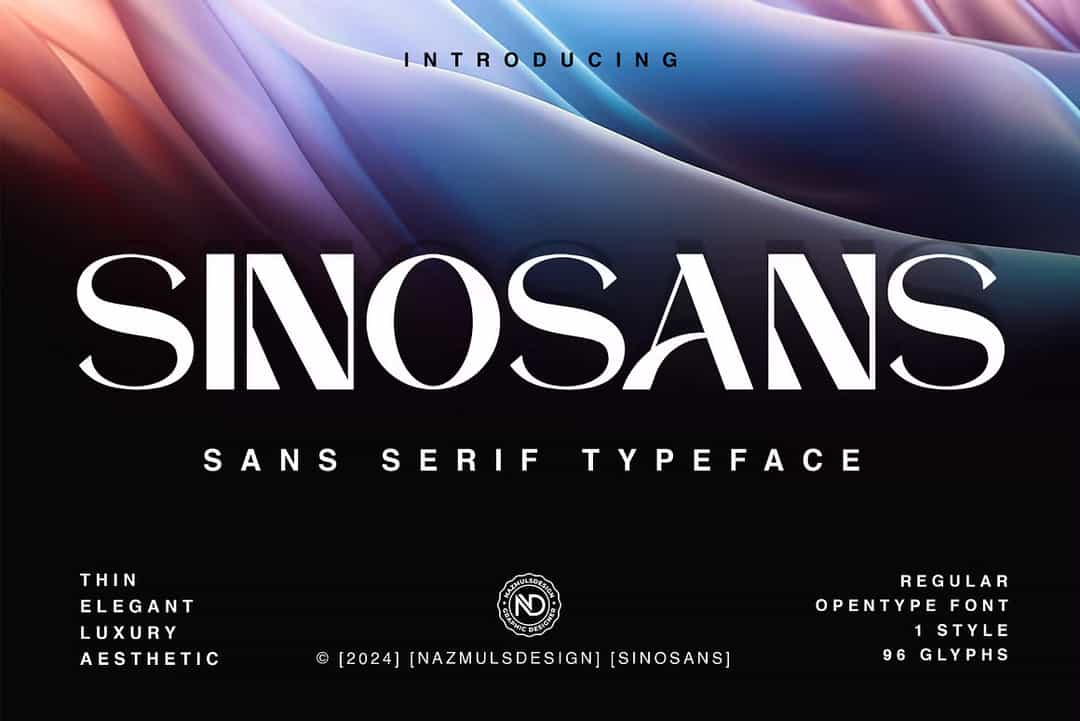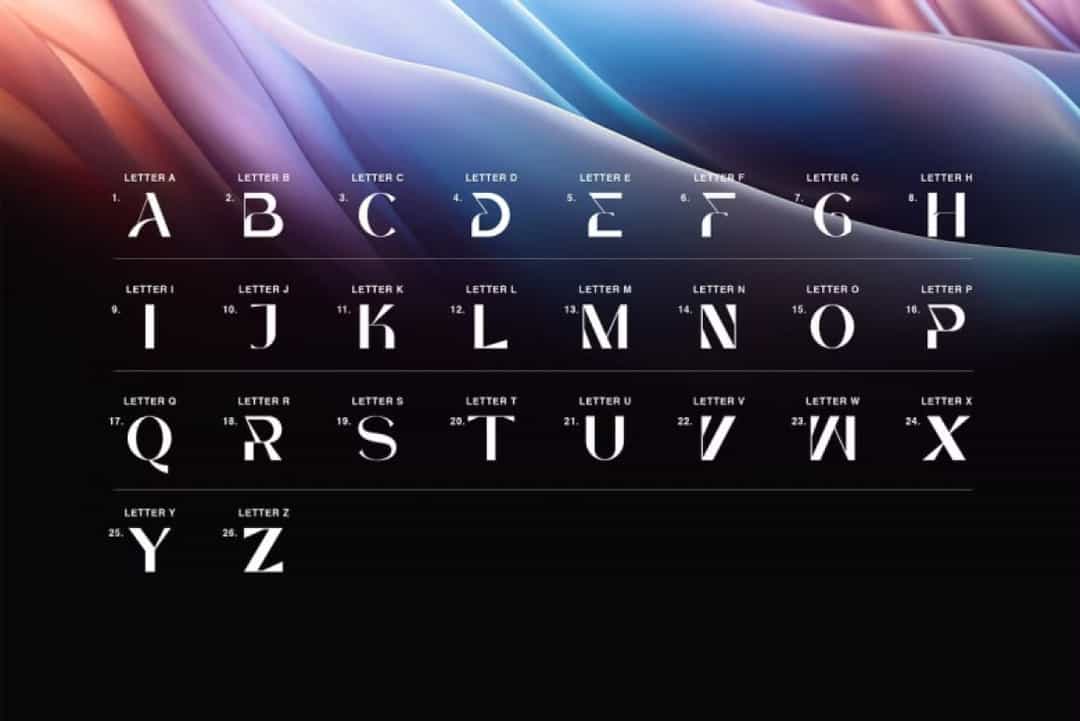
Sinosans is a modern flexible typeface which blends contemporary aesthetics with classical sophistication. Designed to catch the eye and leave a lasting impression across various designs, Sinosans is well balanced proportions and fine detailing add an air of classiness to each letterform.